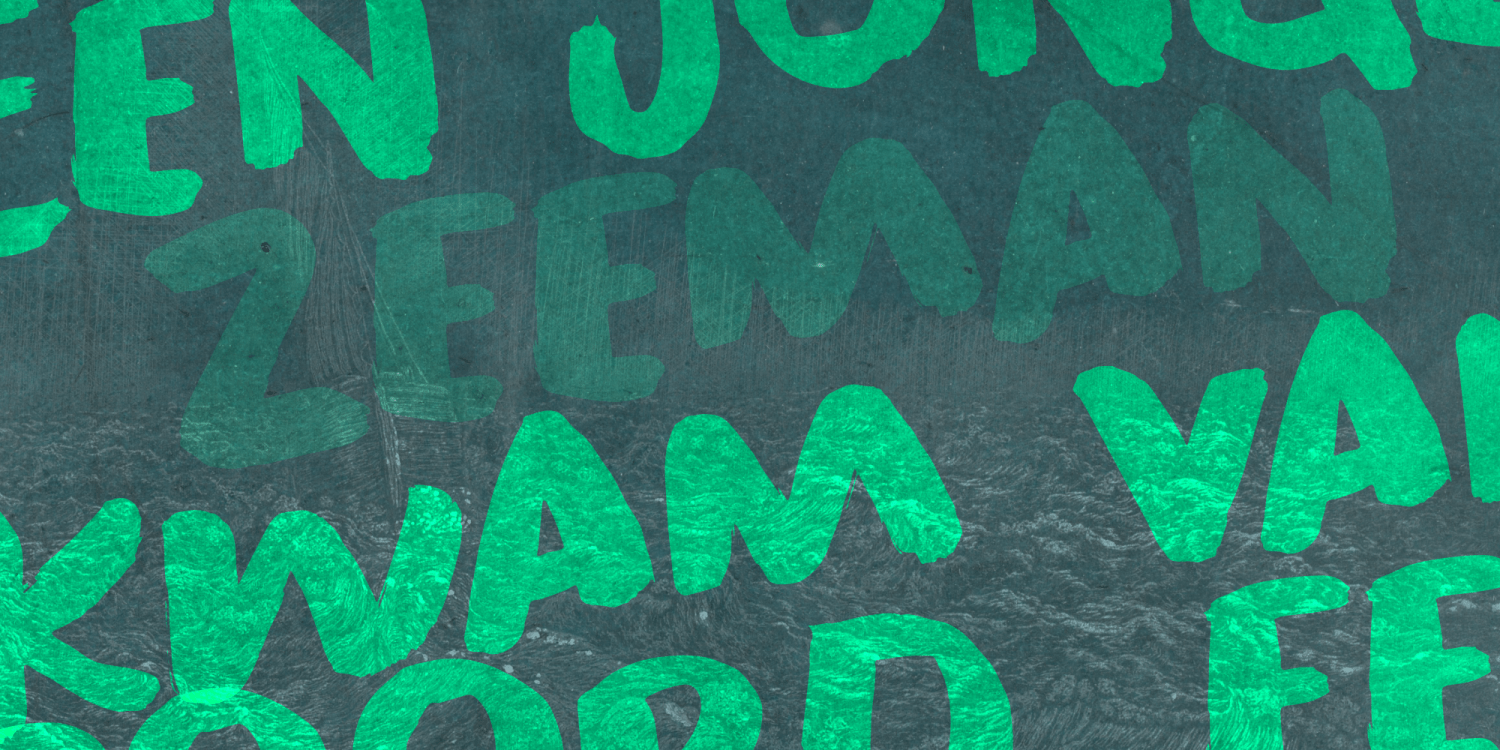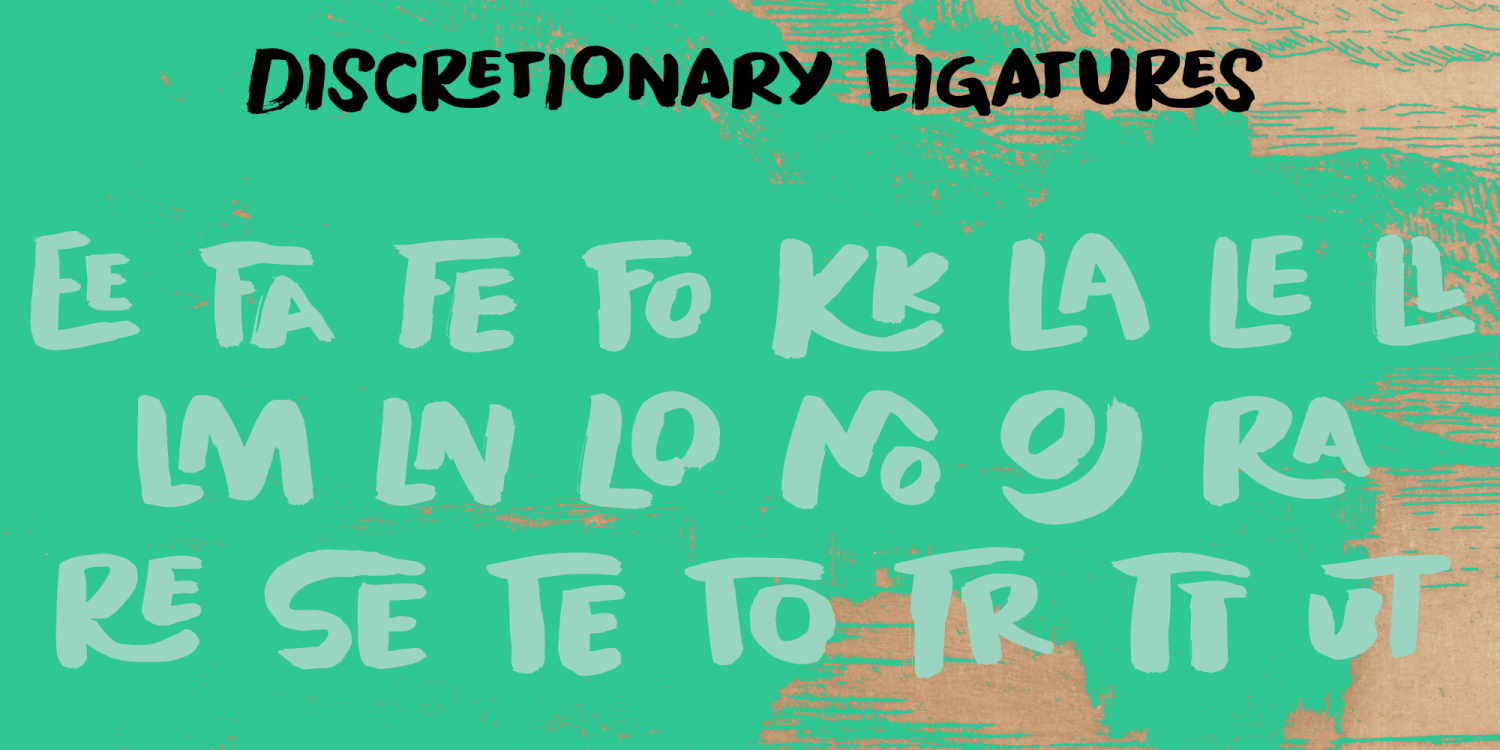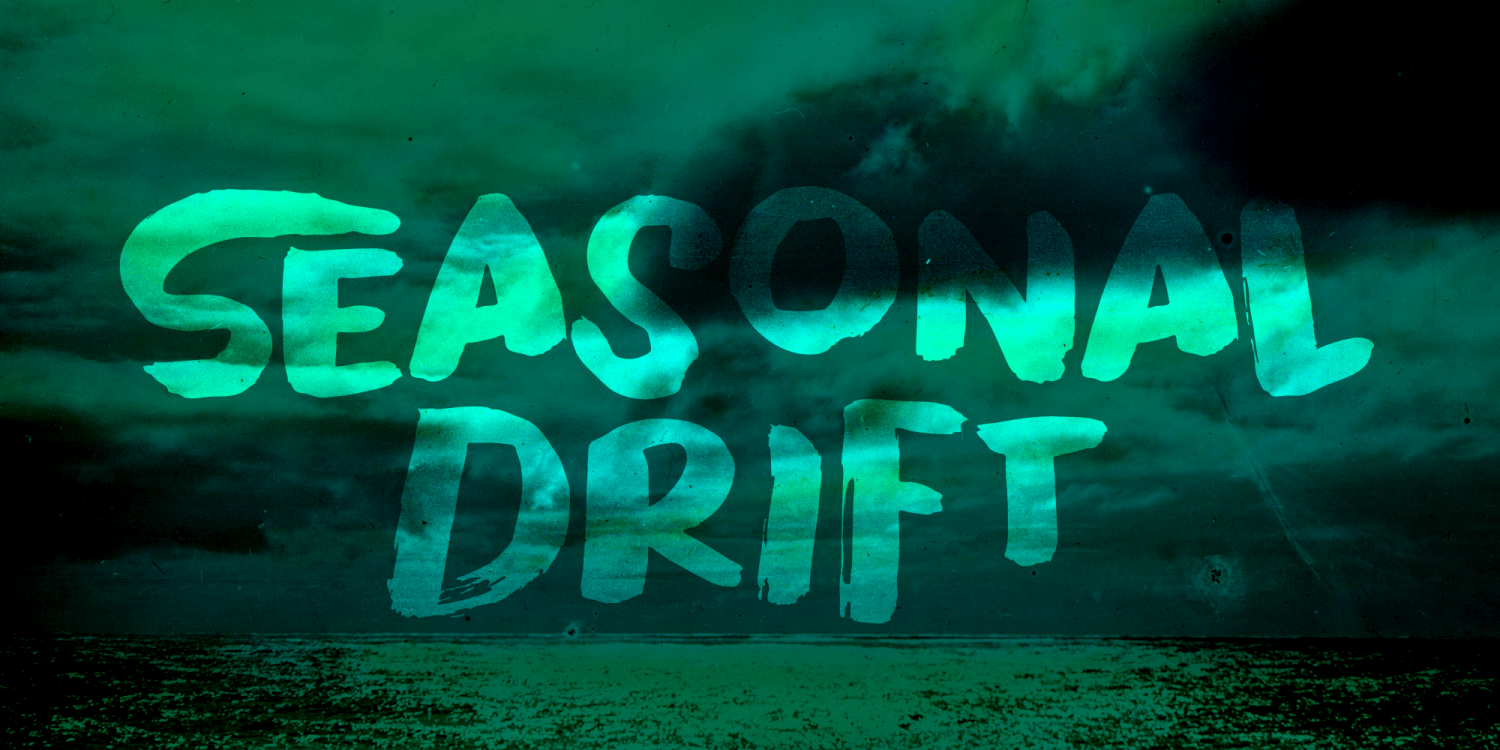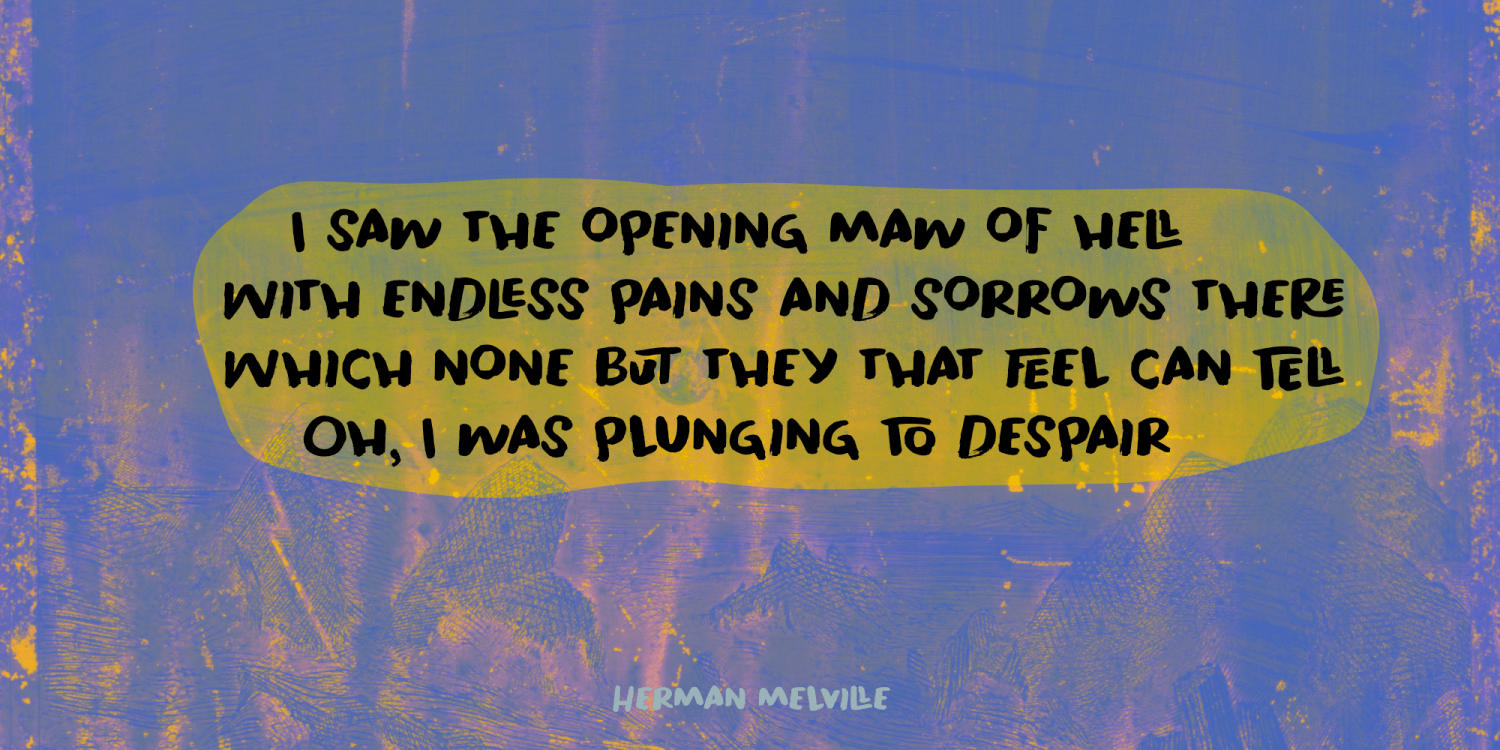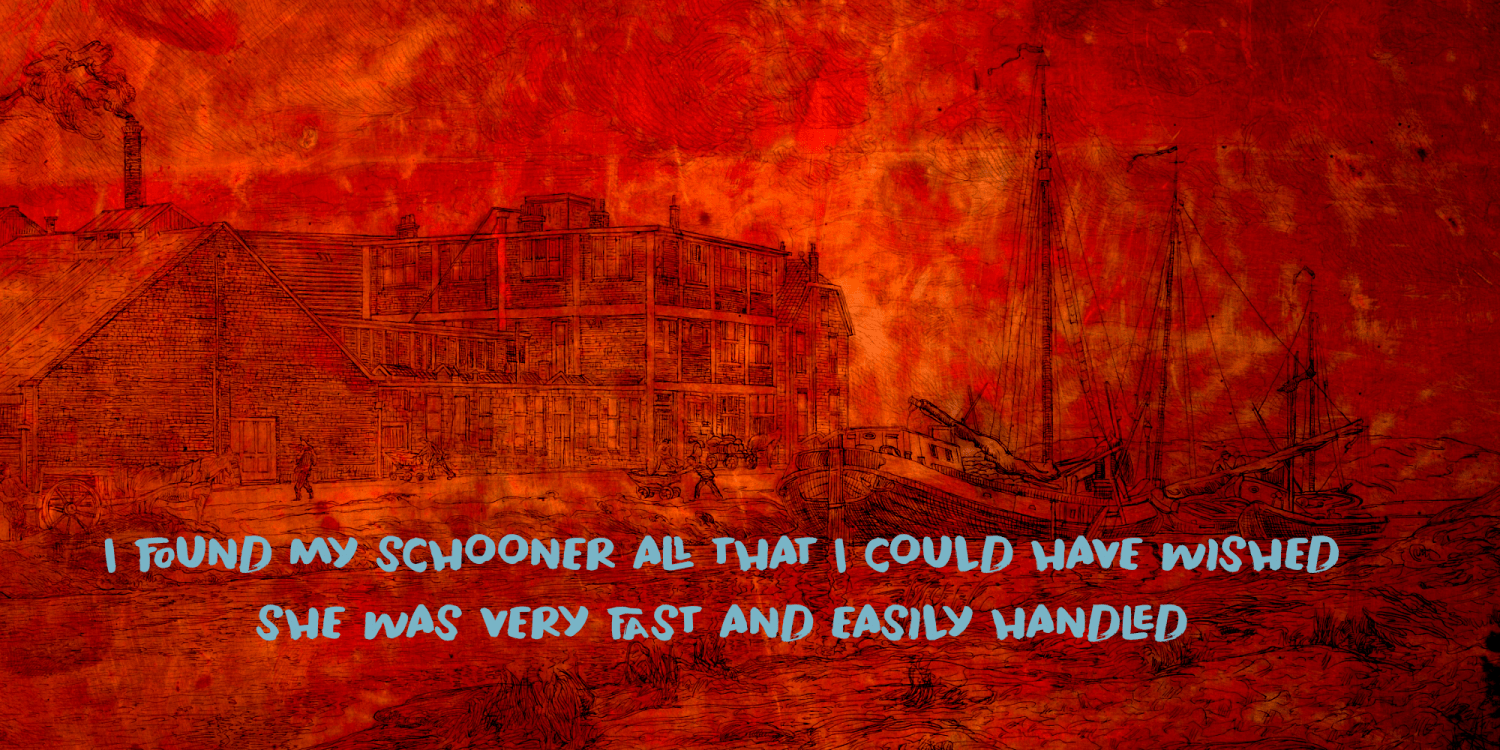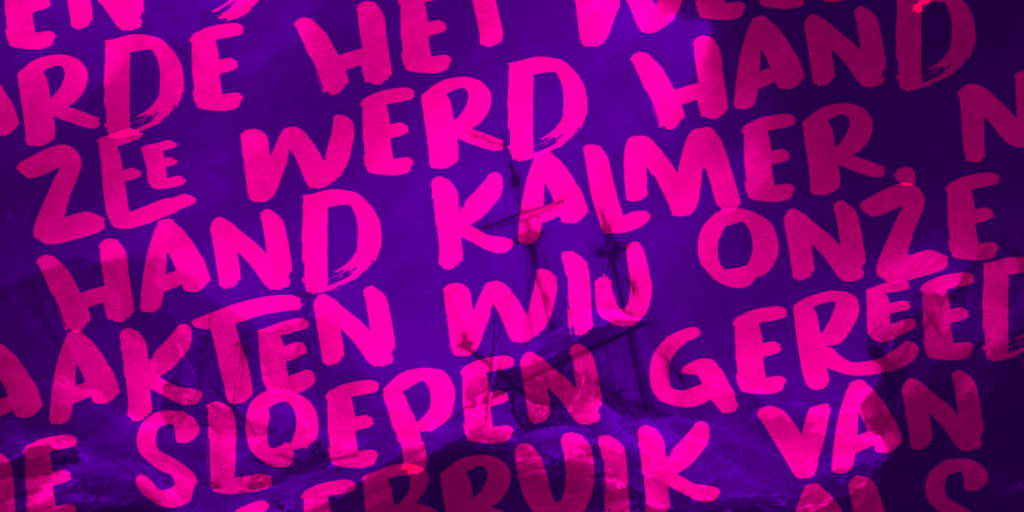
Seasonal Drift
About Seasonal Drift
Seasonal Drift is a brush font that I made using one of my father in law\’s Chinese brushes and ink. For some reason this font reminded me of the ocean, like waves and currents and driftwood. Seasonal Drift comes with a healthy dose of language support…